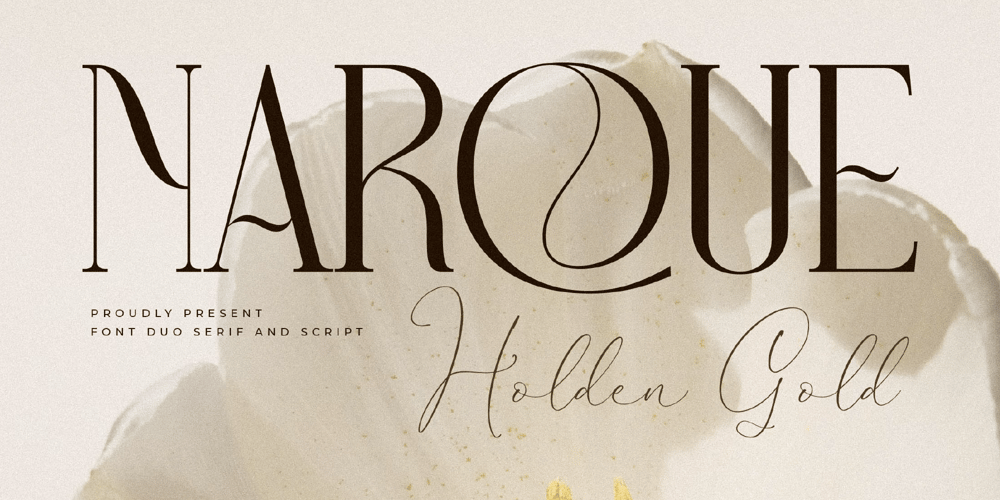
Narque Holden Gold Script Font Family was designed by Heru Utama Putra and published by Letterena Studios. Narque Holden Gold Script contains 2 styles and family package options. Proudly present Narque Holden Gold Font Duo.A serif and script typeface that has its own unique style & modern look.This typeface is perfect for an elegant & luxury logo, book or movie title design, fashion brand, magazine, clothes, lettering, quotes, and so much more.